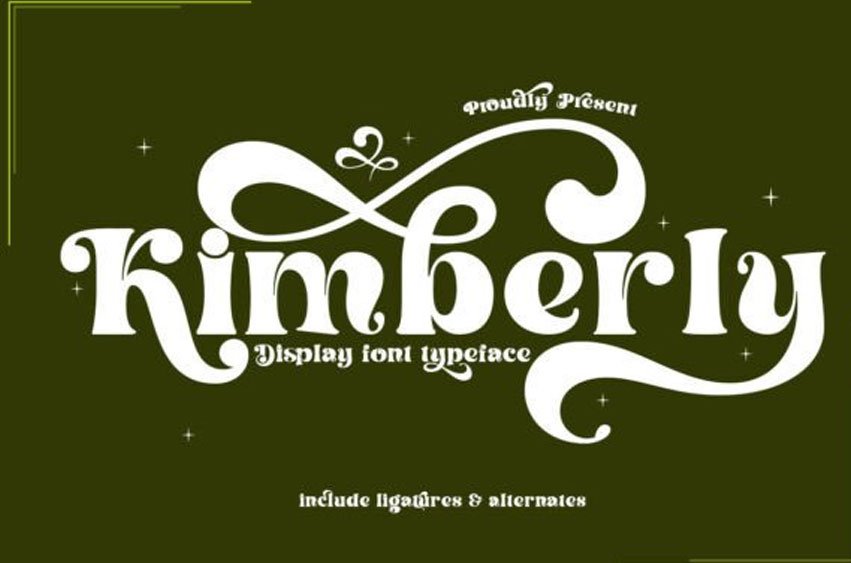
Kimberly Font Experience the refinement and fashion-forward appeal of Kimberly – the font that is every designer’s dream. Infused with elegance and a dash of boldness, Kimberly transforms ordinary designs into masterpieces of modern style.
It’s not just a font; it’s a sweet companion for your design journey, infused with a host of characters to make your artwork stand out. Kimberly adds an extra layer of class, offering a distinct new edge that enhances your design’s overall aesthetic. With Kimberly, immerse your work in a sea of chic and distinctive flair.